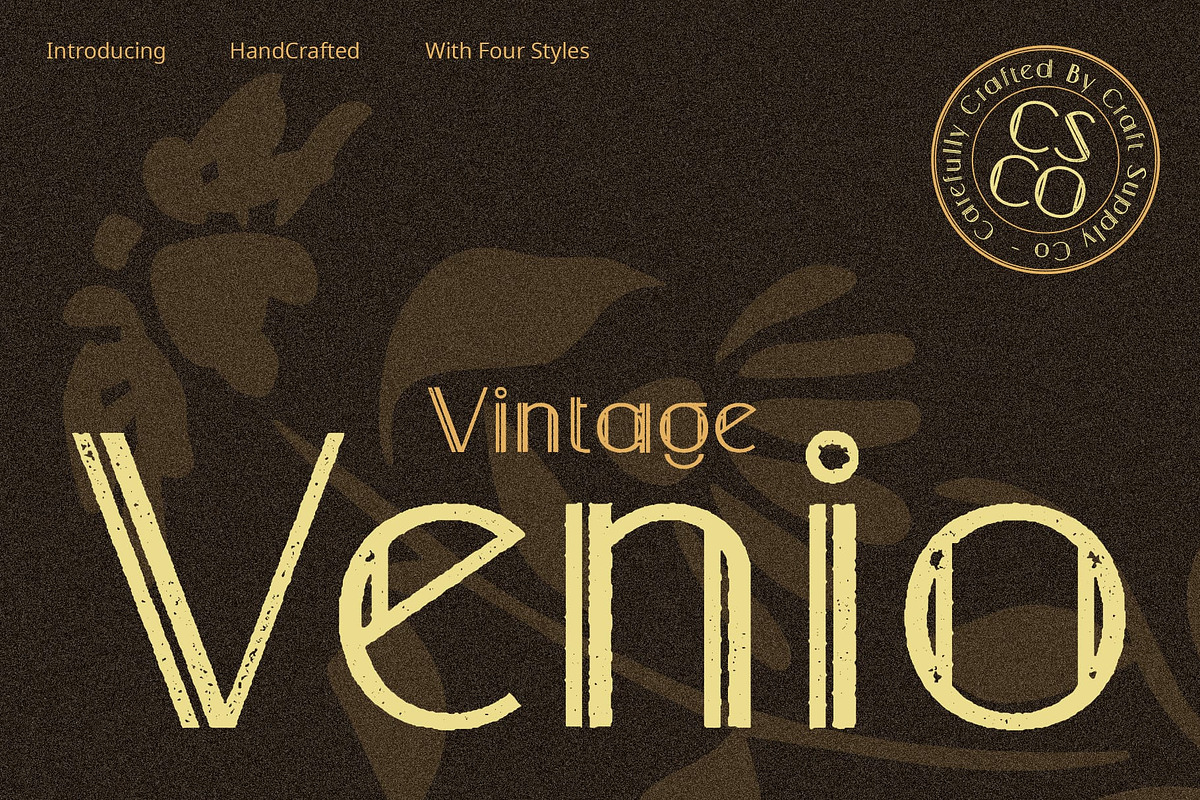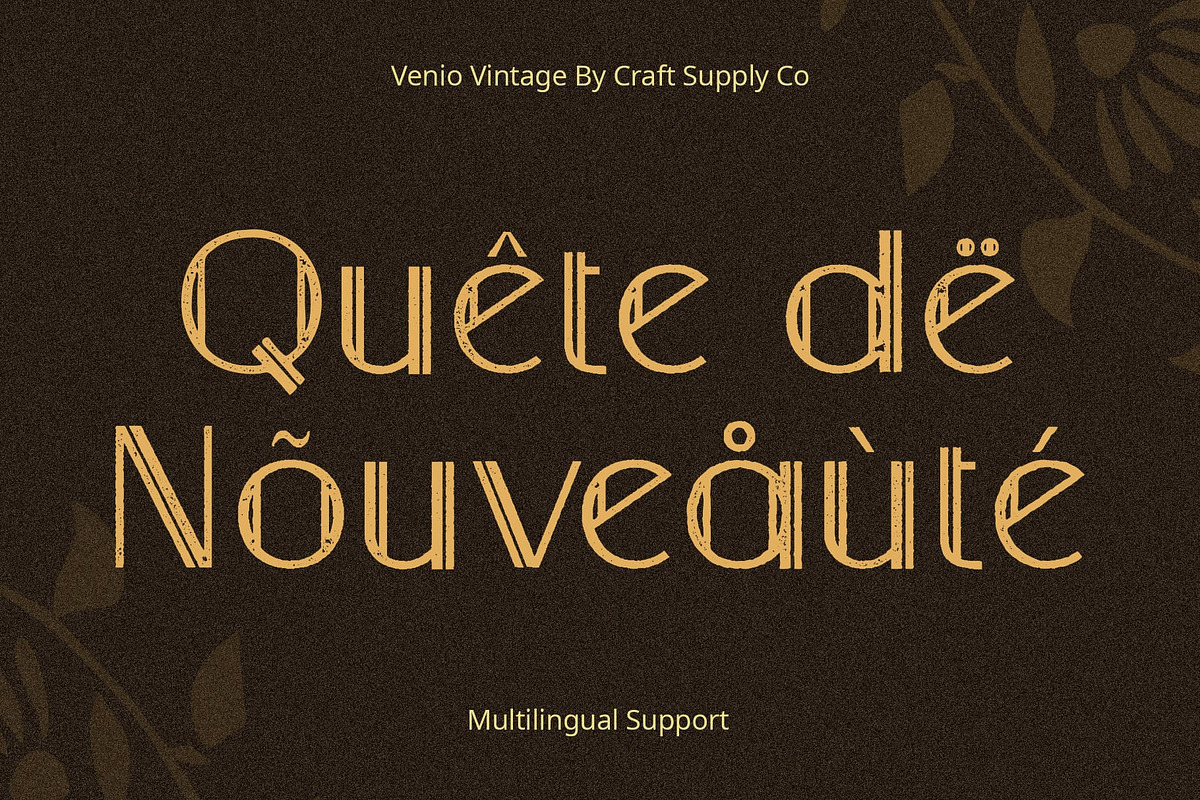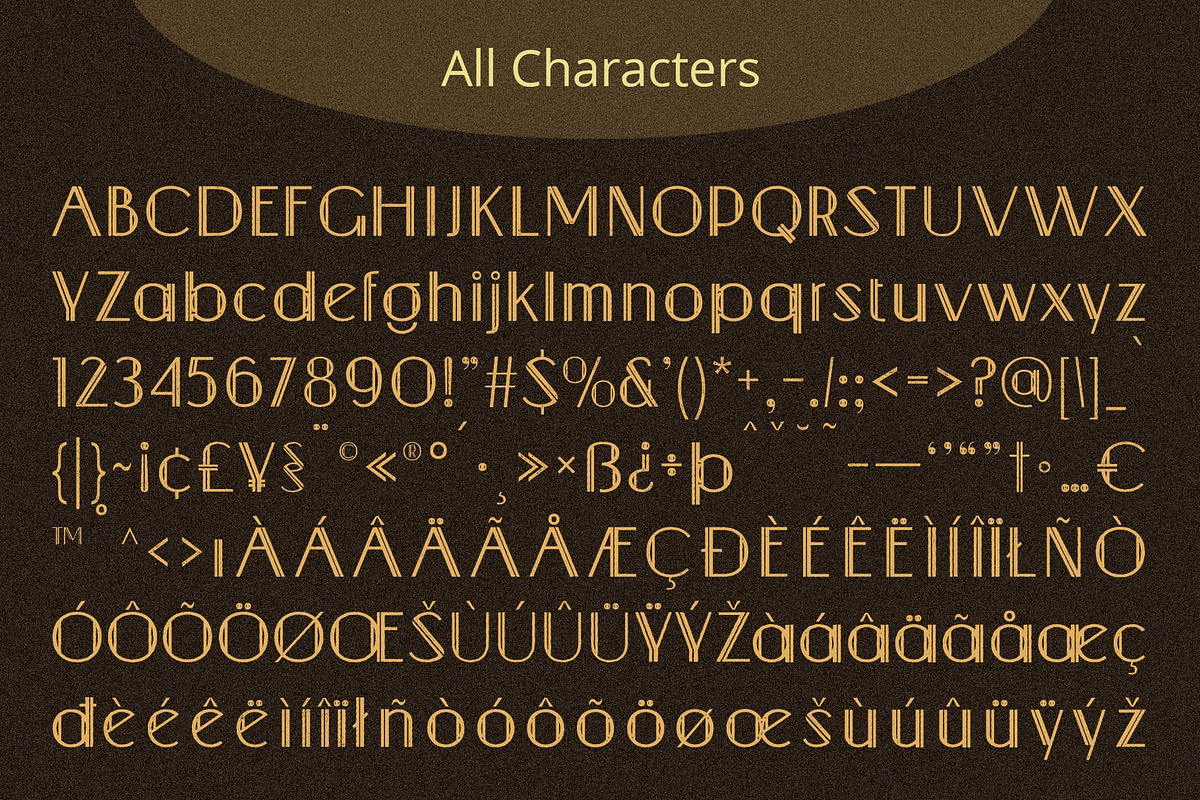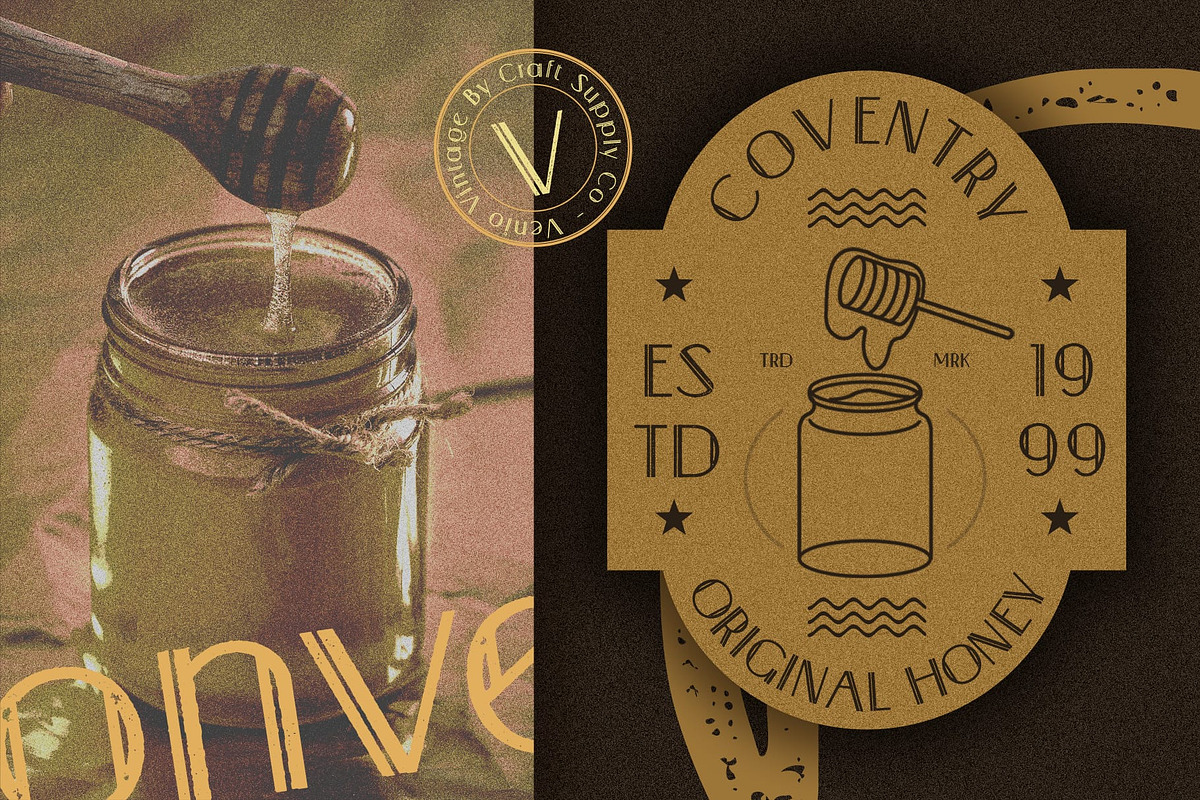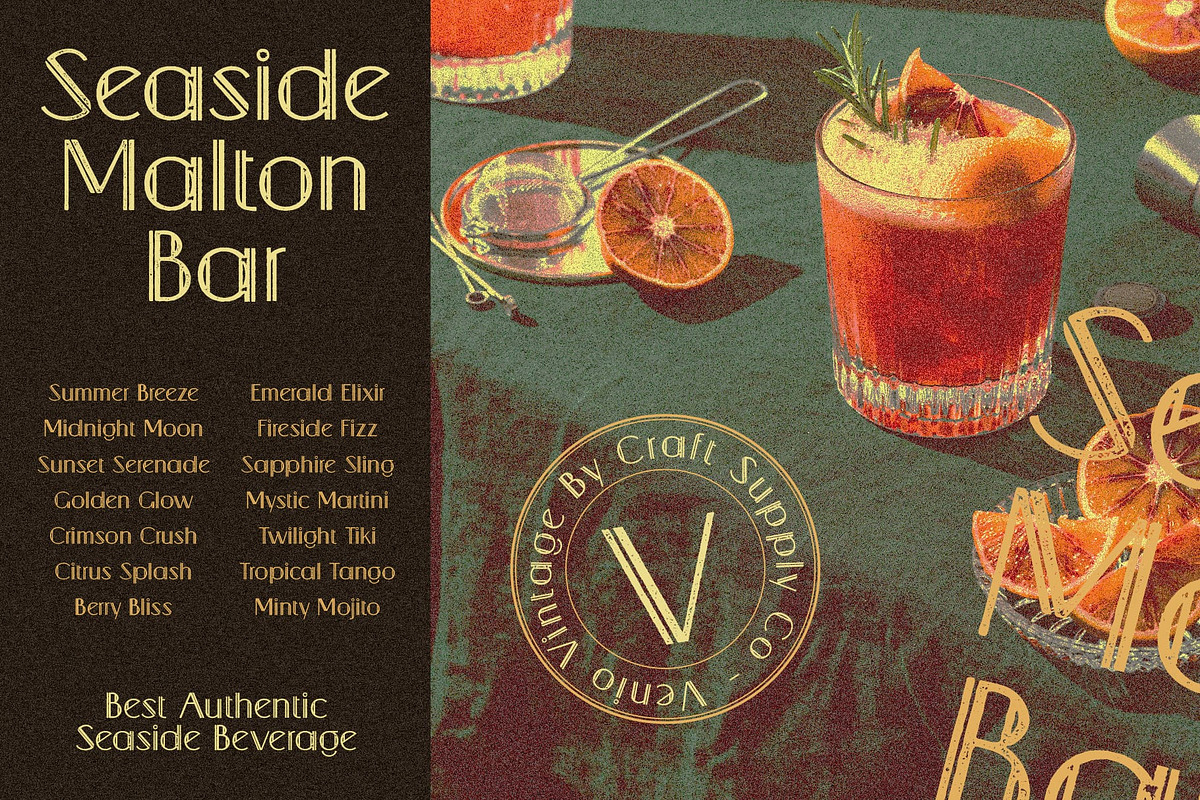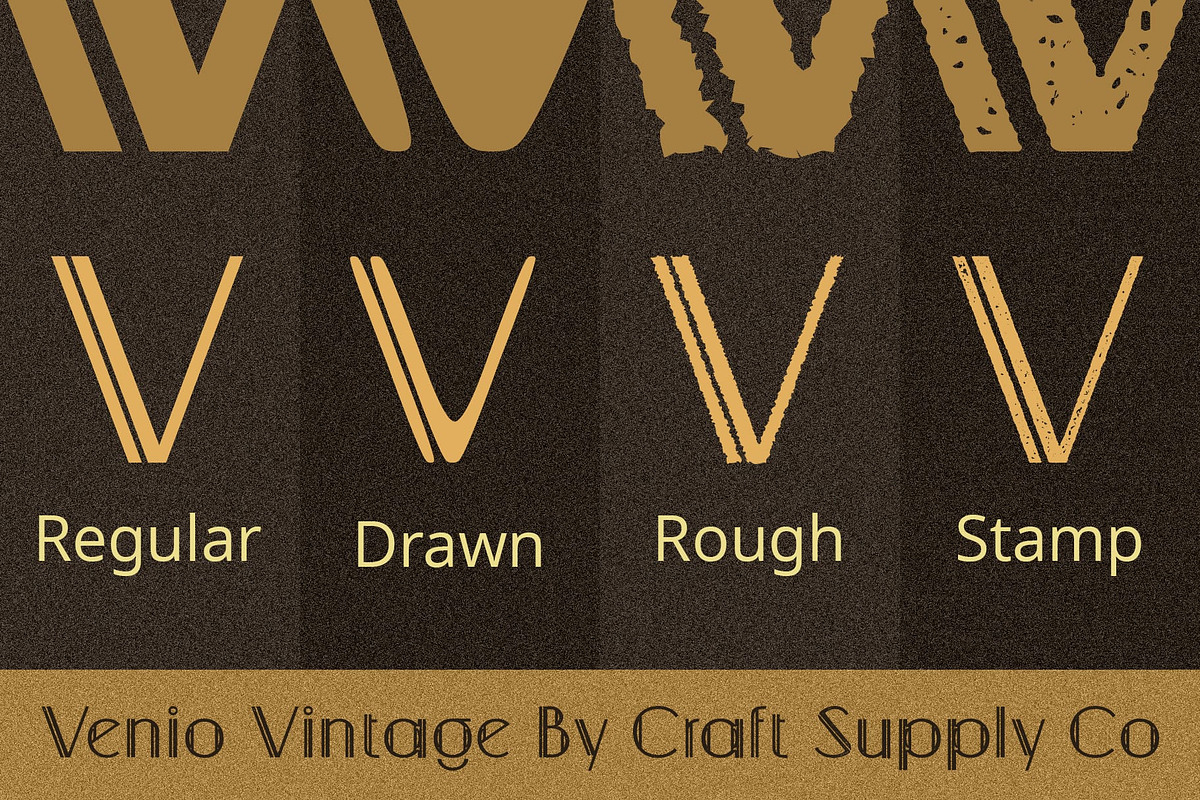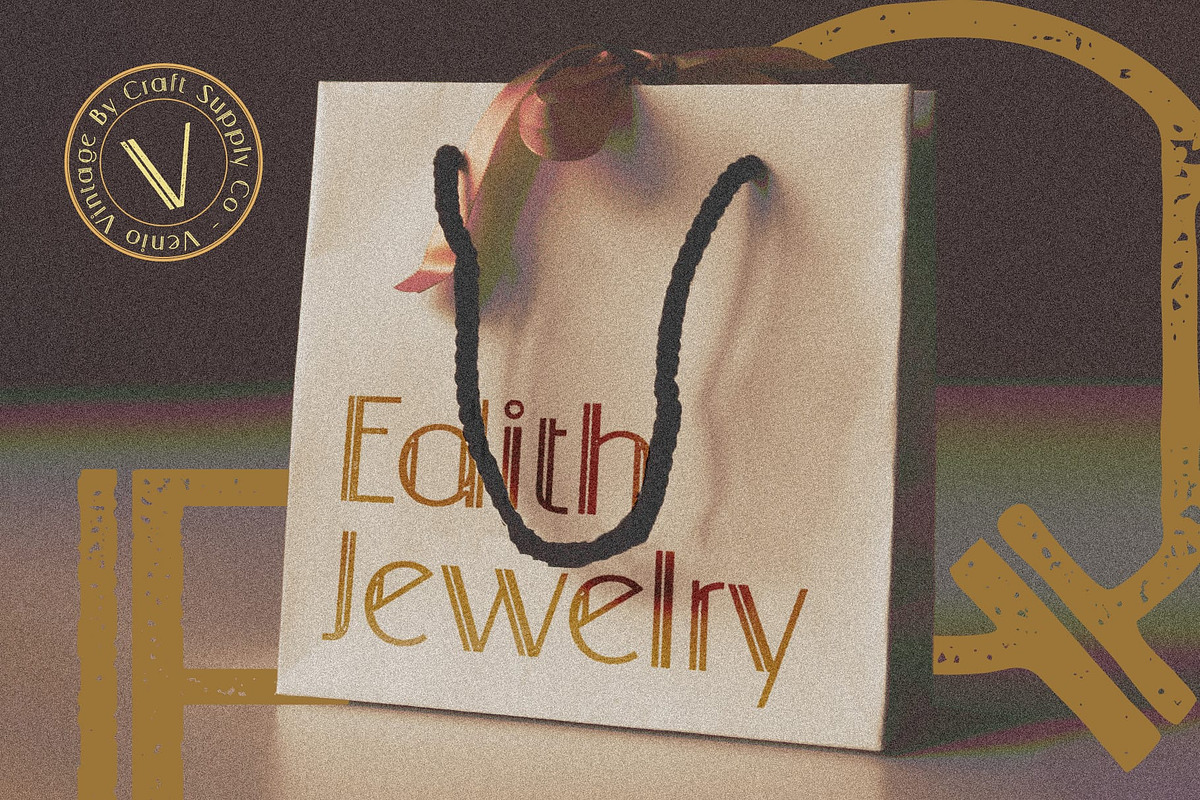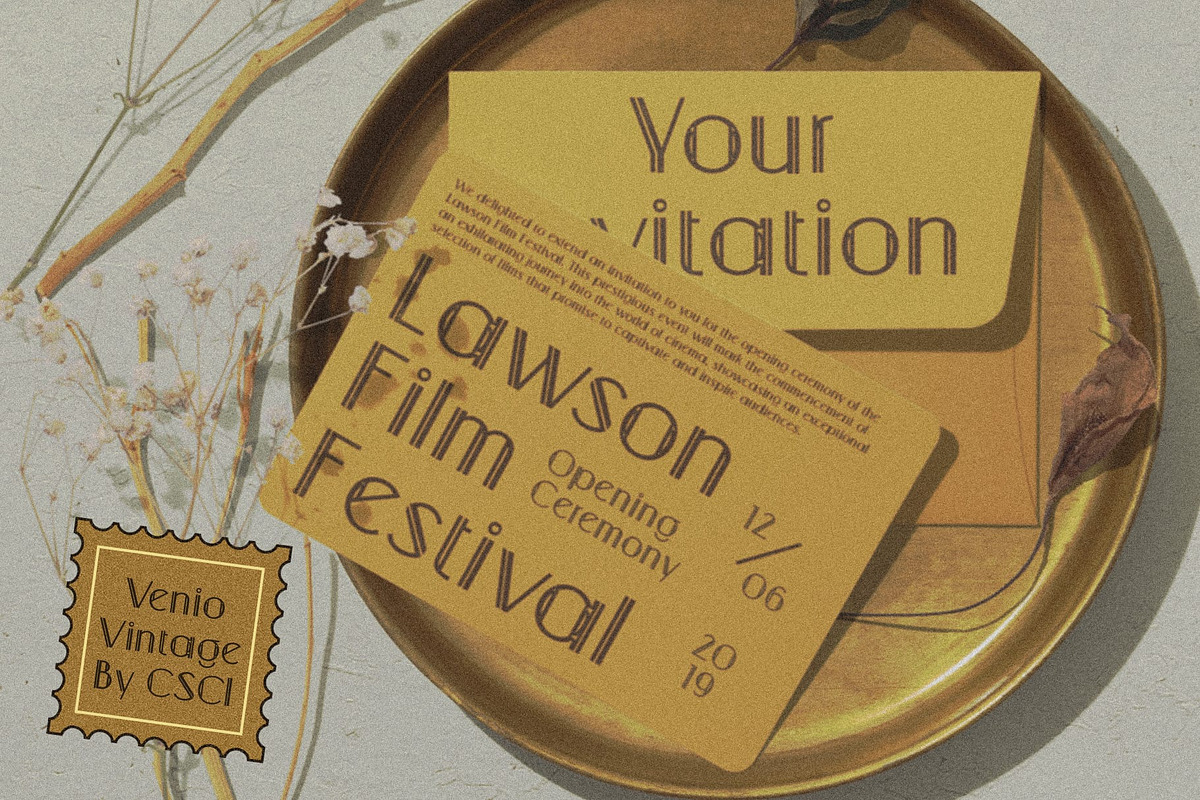
Venio Vintage
Venio Vintage: A Tribute to Art Deco
Sleek Sans Serif Design Venio Vintage presents a sleek sans serif display font with low contrast, drawing inspiration from the iconic Art Deco movement. Its clean lines and geometric shapes evoke the elegance of the early 20th century.
Vintage Appeal with Rough Stamp Drawn Effects Infused with vintage charm, This font features rough stamp drawn effects that add character and depth to its design. This distinctive texture gives the font a weathered, handcrafted appearance reminiscent of bygone eras.
Art Deco Inspiration Drawing inspiration from the Art Deco era, This font captures the essence of this influential design movement. Its geometric forms and stylized lettering pay homage to the opulence and sophistication of the Roaring Twenties.
Perfect for Retro Designs Ideal for retro-themed projects, This font lends a touch of nostalgia to various design applications. Whether used in branding, packaging, or editorial layouts, its vintage allure adds a unique flair to any project.
Timeless Elegance This font encapsulates the timeless elegance of the Art Deco era with its sleek sans serif design and vintage-inspired rough stamp drawn effects. Embrace the nostalgia of the past and elevate your designs with Venio Vintage’s retro charm.
- Venio Regular
- Venio Drawn
- Venio Rough
- Venio Stamp